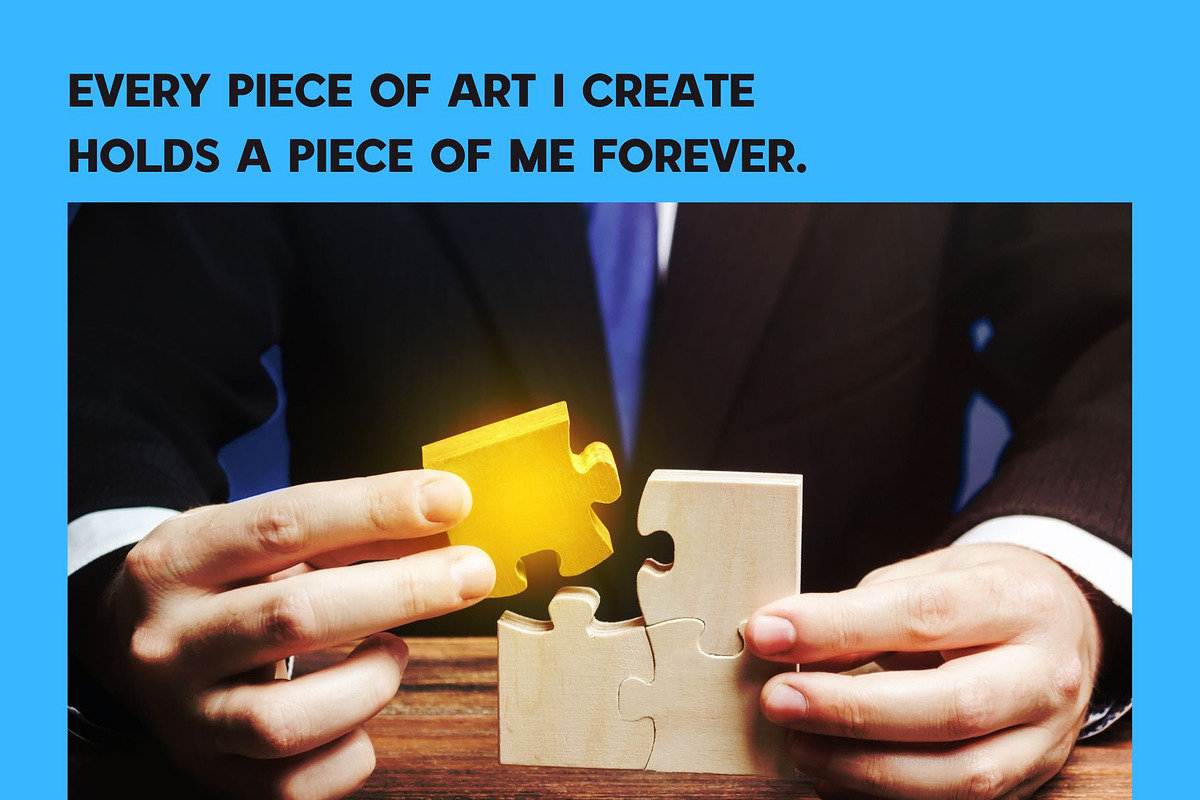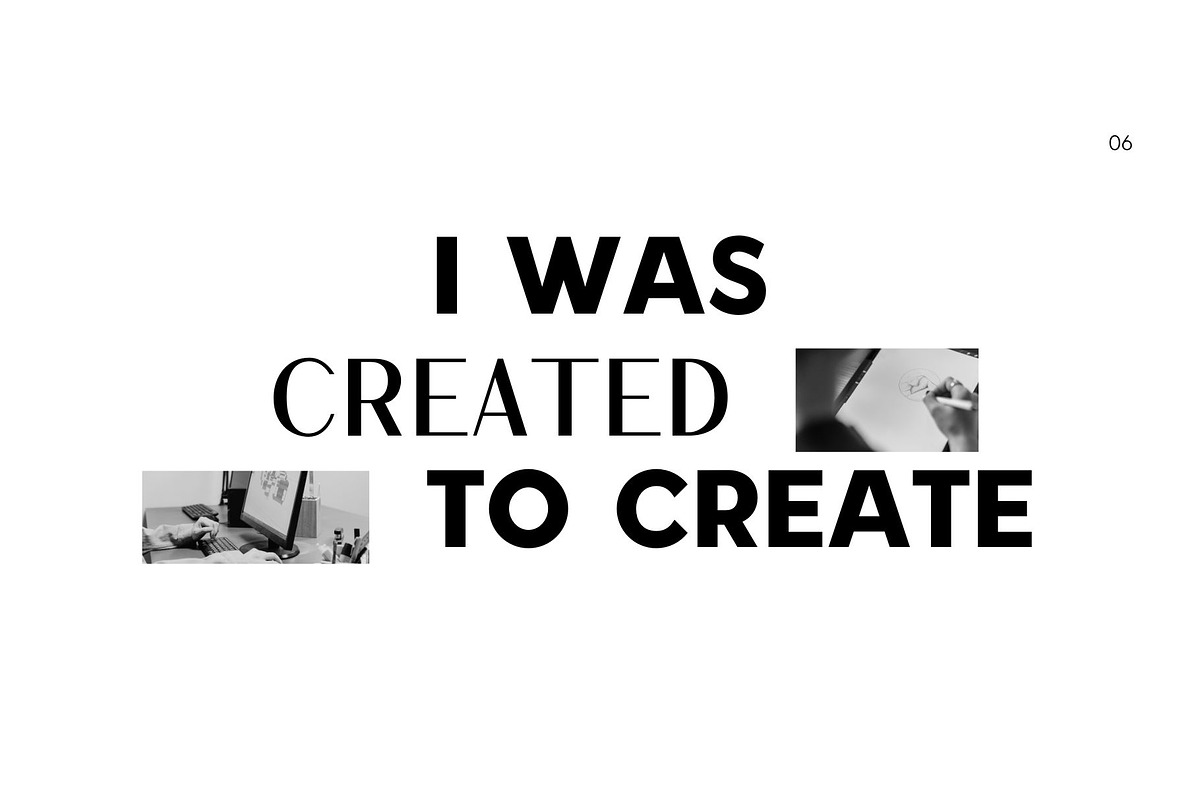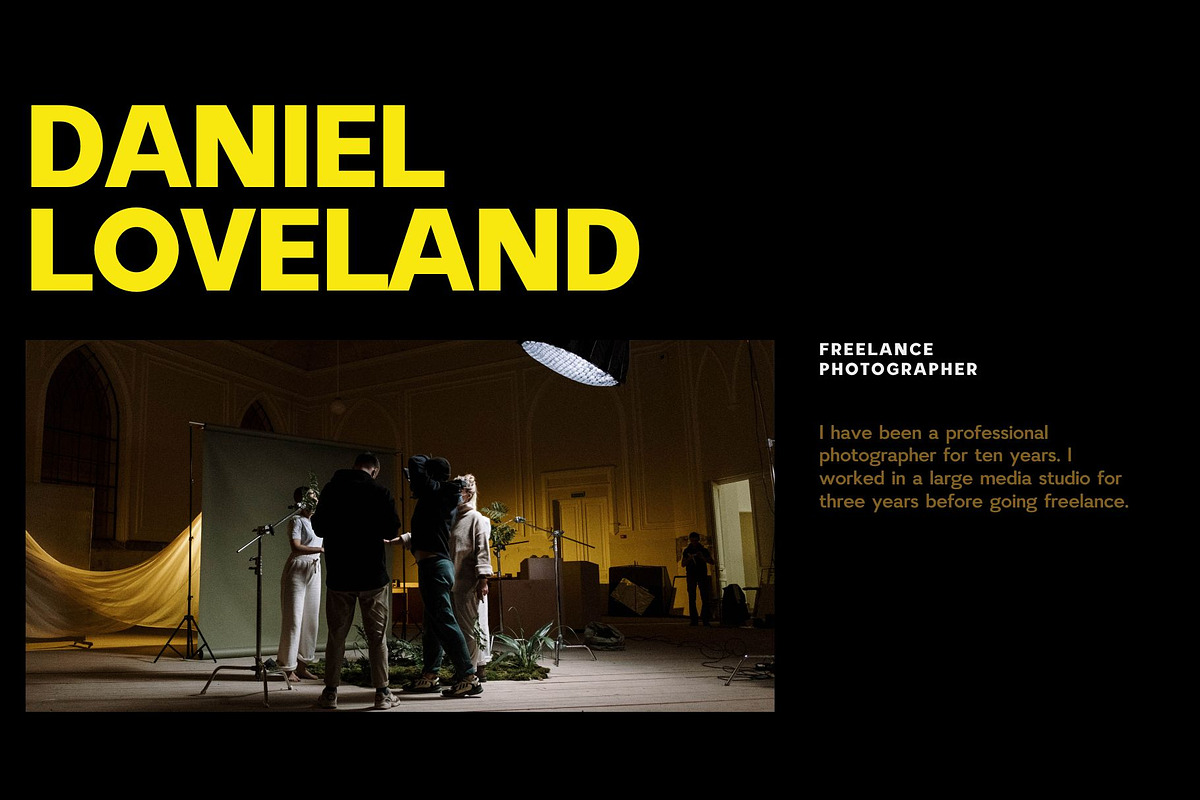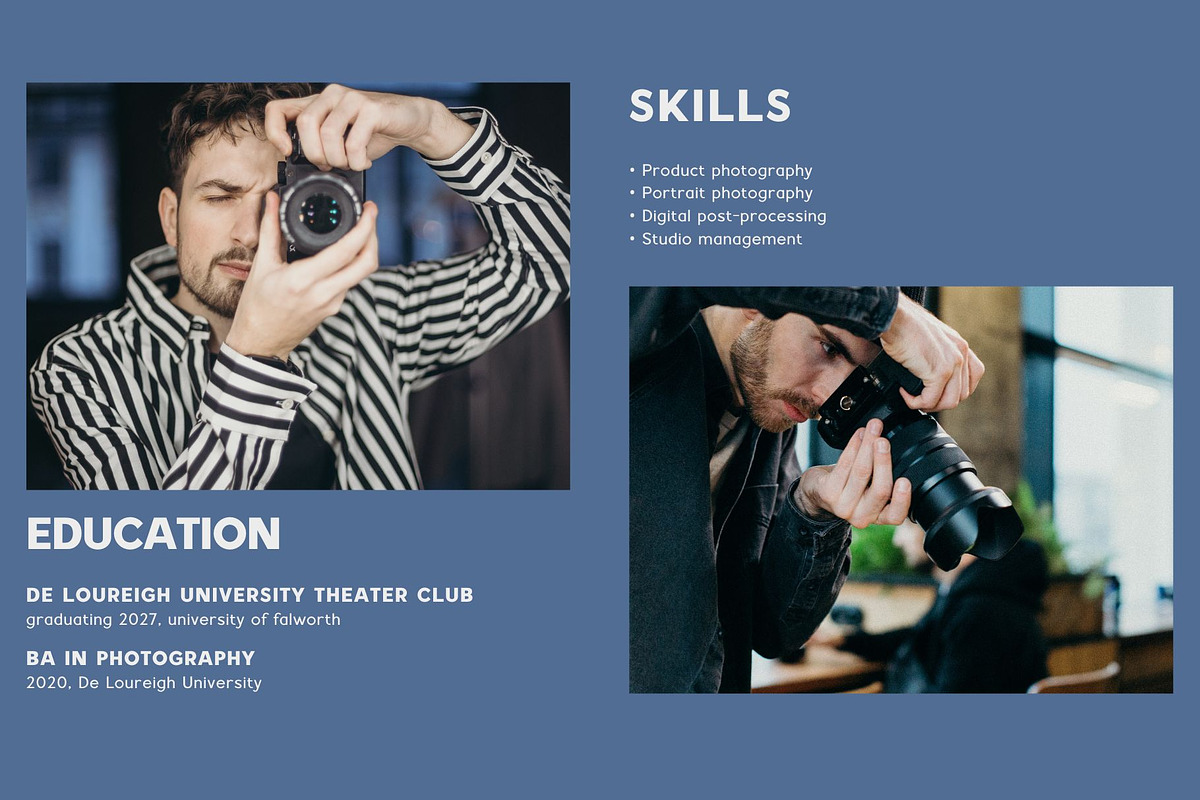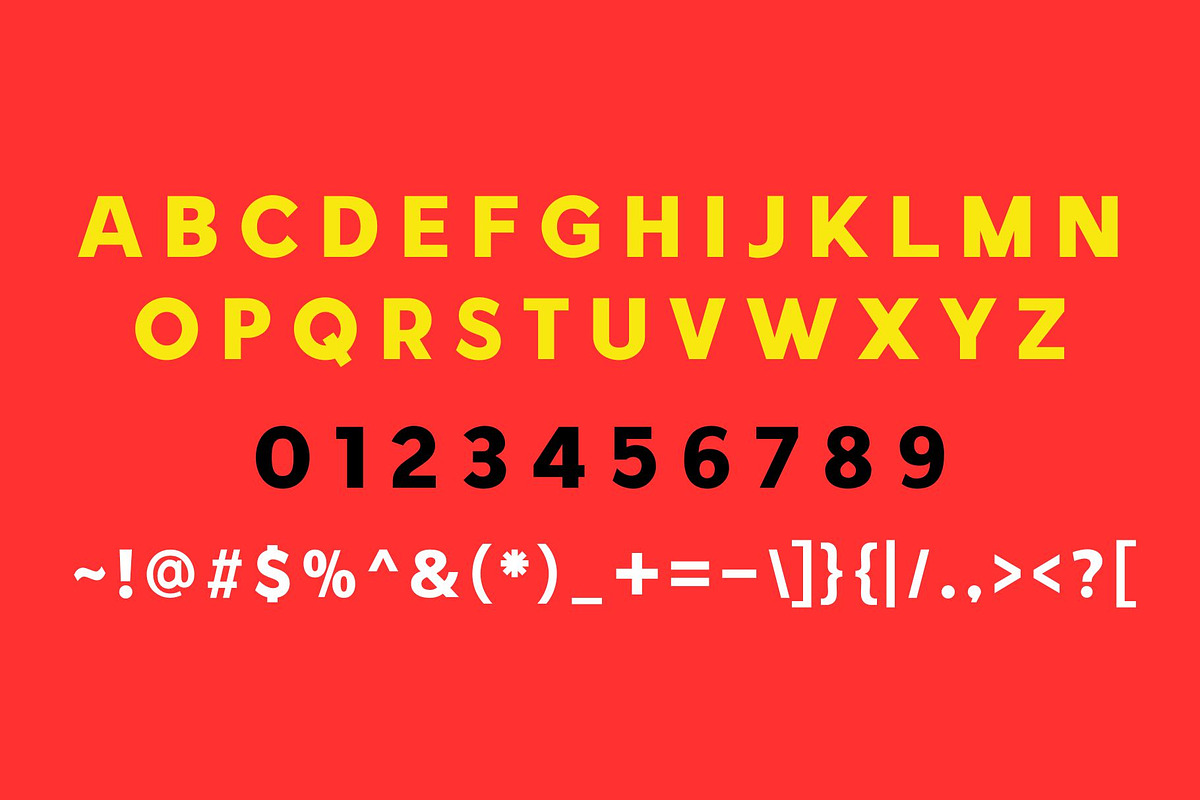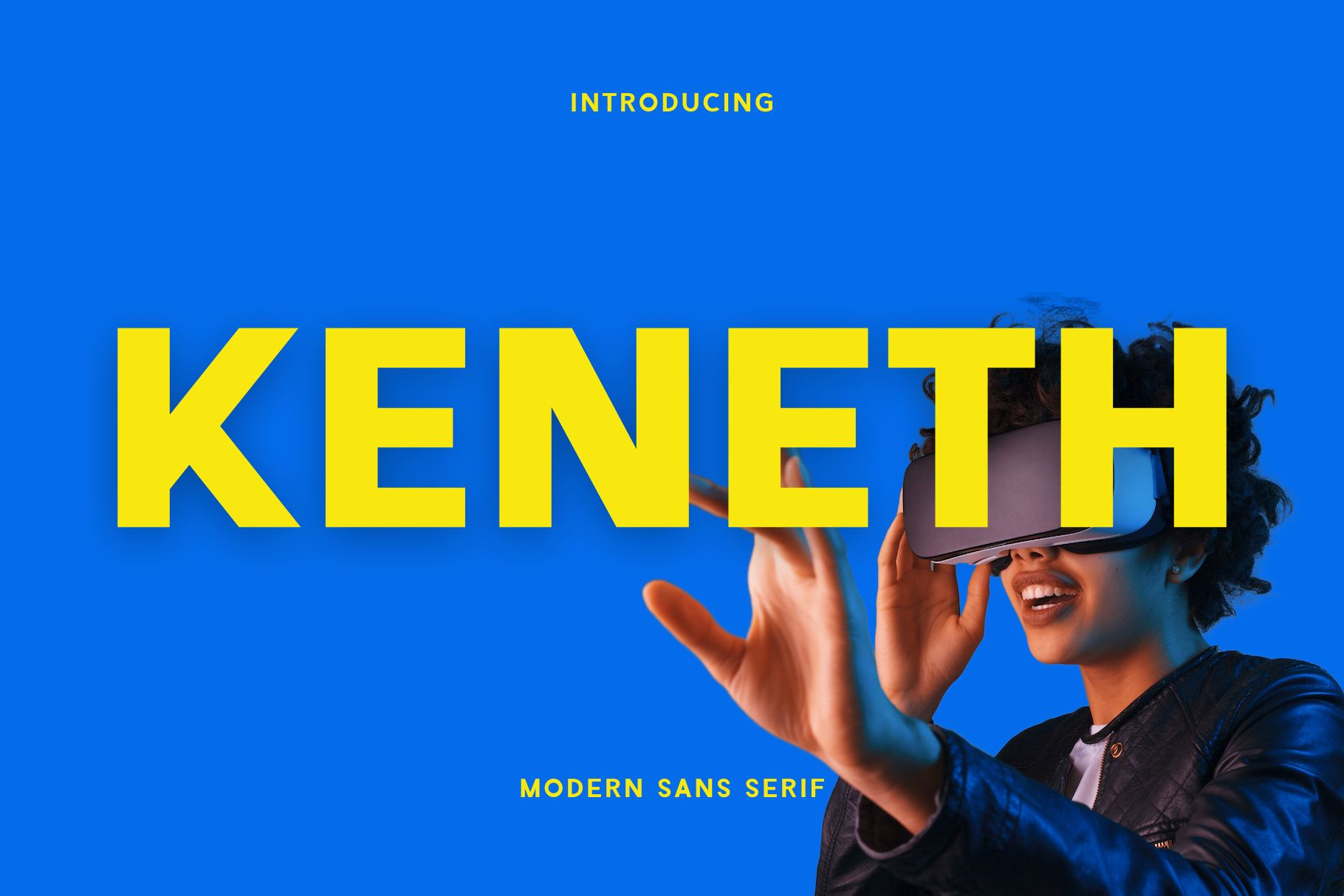
Keneth - Modern Sans Serif Typeface
Introducing 'Keneth' Font:
Unveiling "Keneth" – a bold and modern sans-serif font seamlessly merging sleek sophistication with a robust contemporary edge. Featuring clean lines and a powerful presence, Keneth is crafted to make a resounding statement in your design projects. Tailored for branding, headlines, and any application where a confident and modern typographic style is essential, Keneth allows you to elevate your designs with strength and versatility embodied in every character.
Ideal for:
- Modern Designs
- Photography
- Website Designs
- Advertising Campaigns
- Social Media Designs
- Ready for Creative Expression
- Immaculately Crafted Letters